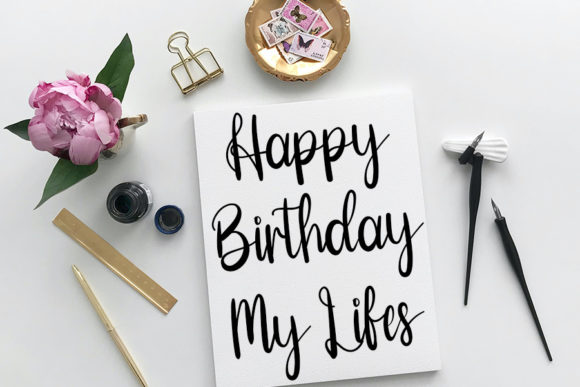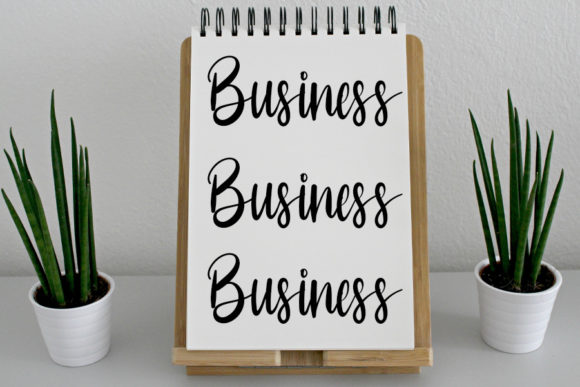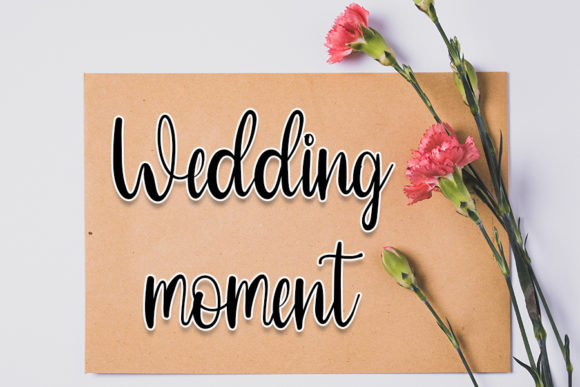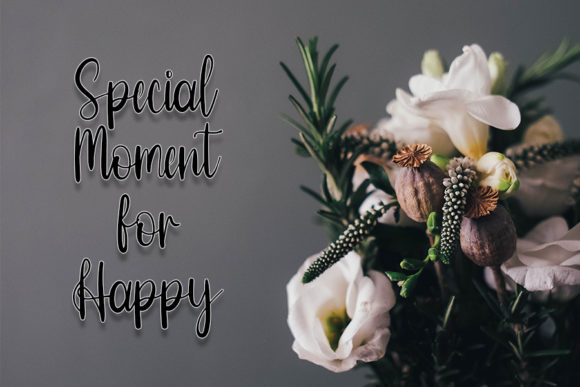
The Amelliya Font: A Romantic and Sweet Calligraphy Typeface
I’ll never forget the moment I stumbled upon the Amelliya font while working on a wedding invitation project. My client wanted a design that exuded elegance and whimsy, but I was struggling to find the perfect font to bring her vision to life. That’s when I discovered Amelliya, a romantic and sweet calligraphy typeface that instantly captured my heart. Its casual yet elegant touch was exactly what I needed to create a stunning design that would exceed my client’s expectations.
An Honest Review of Amelliya Font
What I Love About Amelliya ✨
- 💕 Romantic and sweet calligraphy style that’s perfect for wedding invitations, love letters, and other sentimental designs
- ✅ Elegant yet casual touch that adds a touch of sophistication to any design
- 🎉 Versatile and can be used for various purposes such as logos, headings, t-shirts, letterhead, signage, labels, news, posters, badges, and more
- 👀 Unique character dance along the baseline that adds a playful touch to any design
While Amelliya is an amazing font, there are a few quirks to be aware of:
- 🤔 Some characters may not work well in very small sizes, so it’s best to use it at larger sizes (14pt or higher) for optimal results
- ⚠️ Limited availability of certain OpenType features, such as ligatures and stylistic alternates, which may require additional design workarounds
The Backstory of Amelliya Font
Amelliya was designed by a talented type designer who wanted to create a font that captured the essence of romance and whimsy. Inspired by traditional calligraphy and hand-lettering, Amelliya was crafted to be a versatile and elegant typeface that’s perfect for a variety of design projects.
Q: What is the Amelliya font best used for?
A: Amelliya is a versatile font that’s perfect for various design projects, such as logos, wedding invitations, headings, t-shirts, letterhead, signage, labels, news, posters, badges, and more.
Q: Is Amelliya a script font?
A: Yes, Amelliya is a script font that features connected letters and a flowing script style.